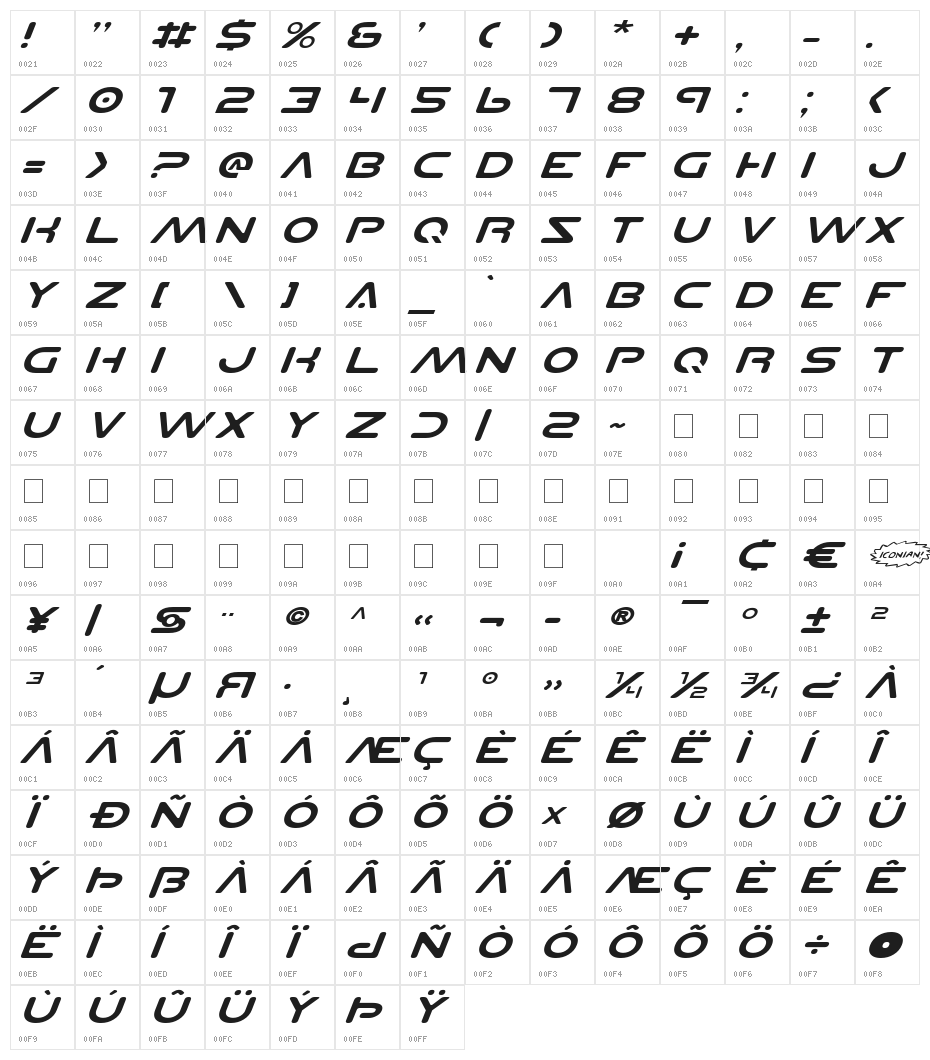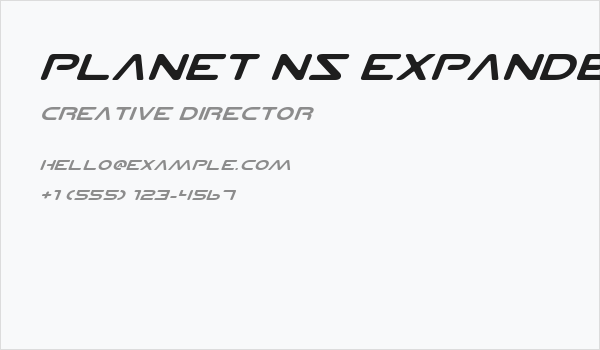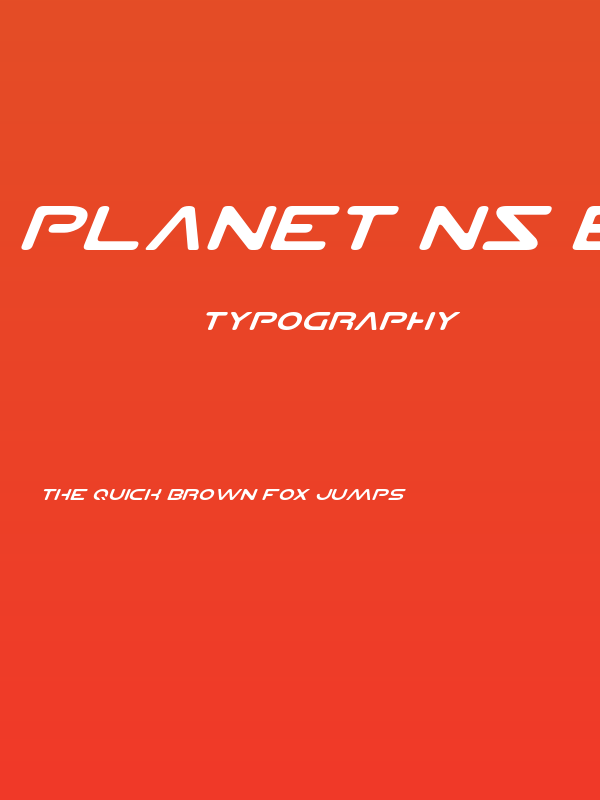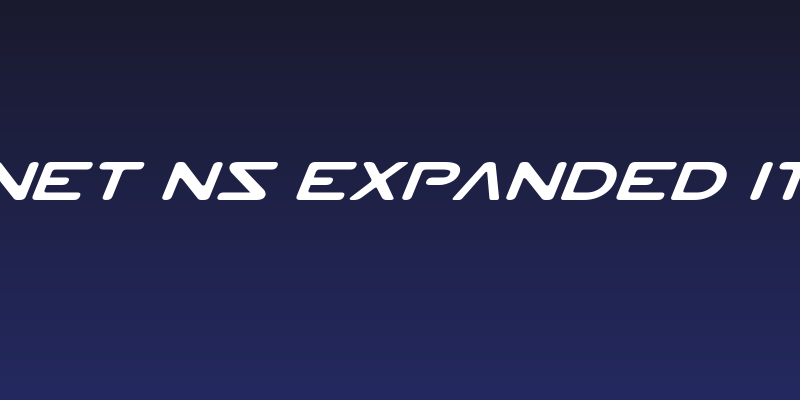
Planet NS Expanded Italic Font
Planet NS Expanded Italic Description
This font features a futuristic and sleek design with an italicized style that gives it a sense of motion and speed. The characters are expanded, providing a wide appearance that enhances readability while maintaining a modern aesthetic. The strokes are consistent in thickness, offering a medium contrast that balances boldness with elegance. The overall look is dynamic and contemporary, making it suitable for projects that require a cutting-edge and innovative feel. The special characters are designed to complement the letters and numbers, ensuring a cohesive look across all elements.
| Use Case | Logos, Headlines, Digital Interfaces |
| Proposed Projects | Ideal for technology branding, sci-fi themed designs, automotive advertisements, and modern digital interfaces. |